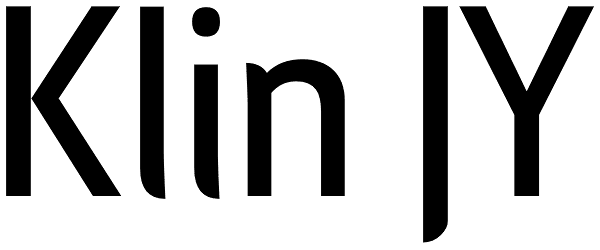
Klin JY
Jure Stojan first created JY Klin for a student magazine in Ljubljana, Slovenia. ‘It was borne out of my frustration with layout [programs] and their taste for messing with decent fonts (making the headline occupy the entire column width at any...